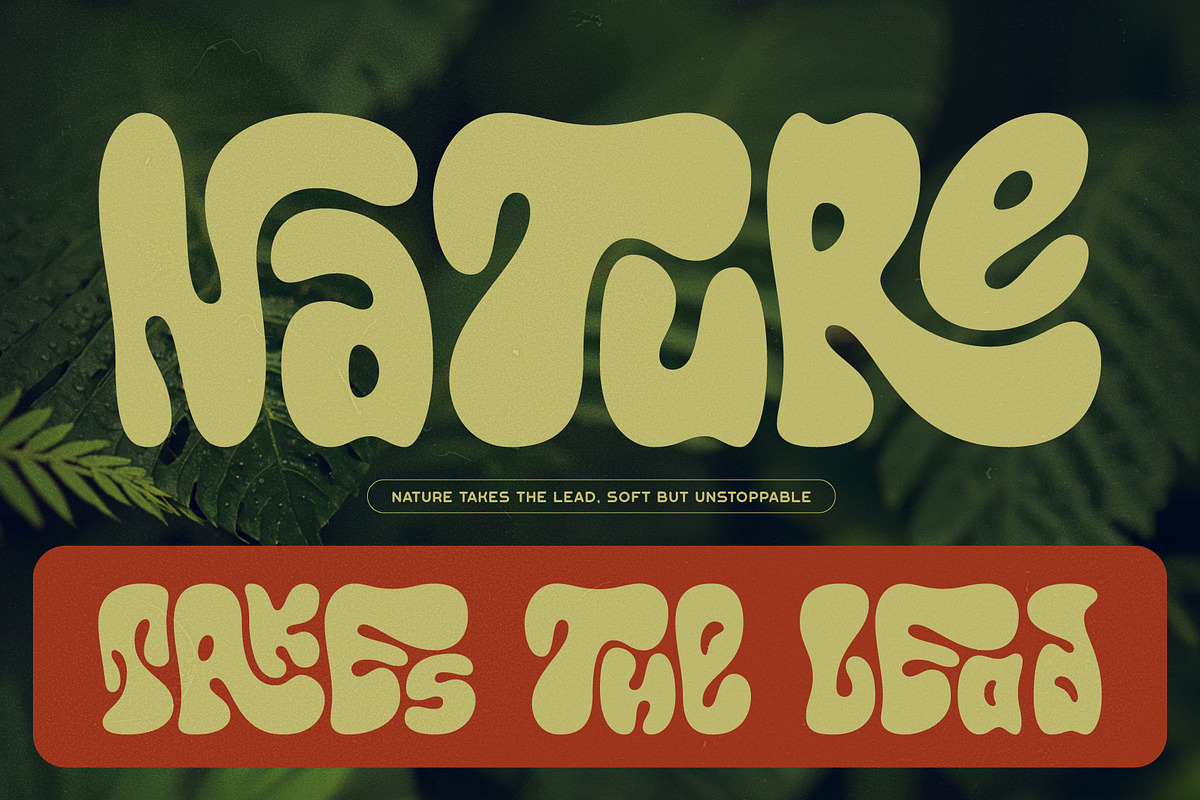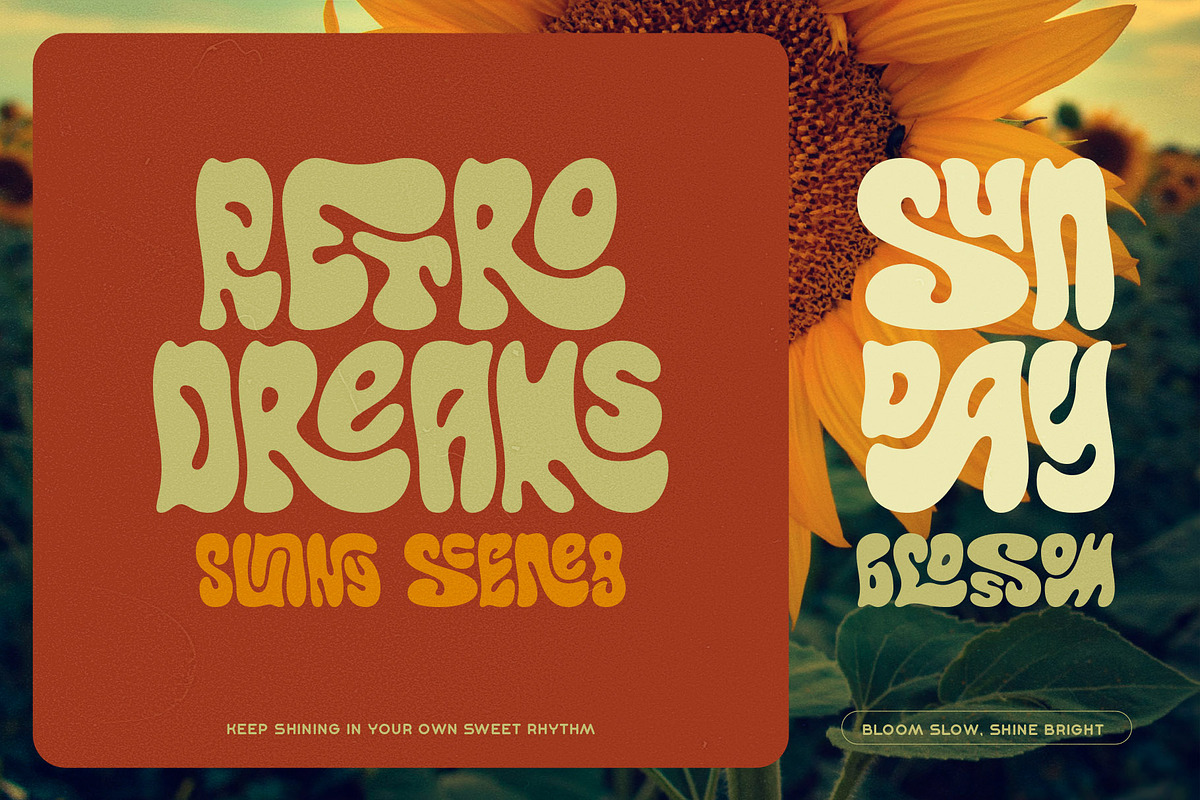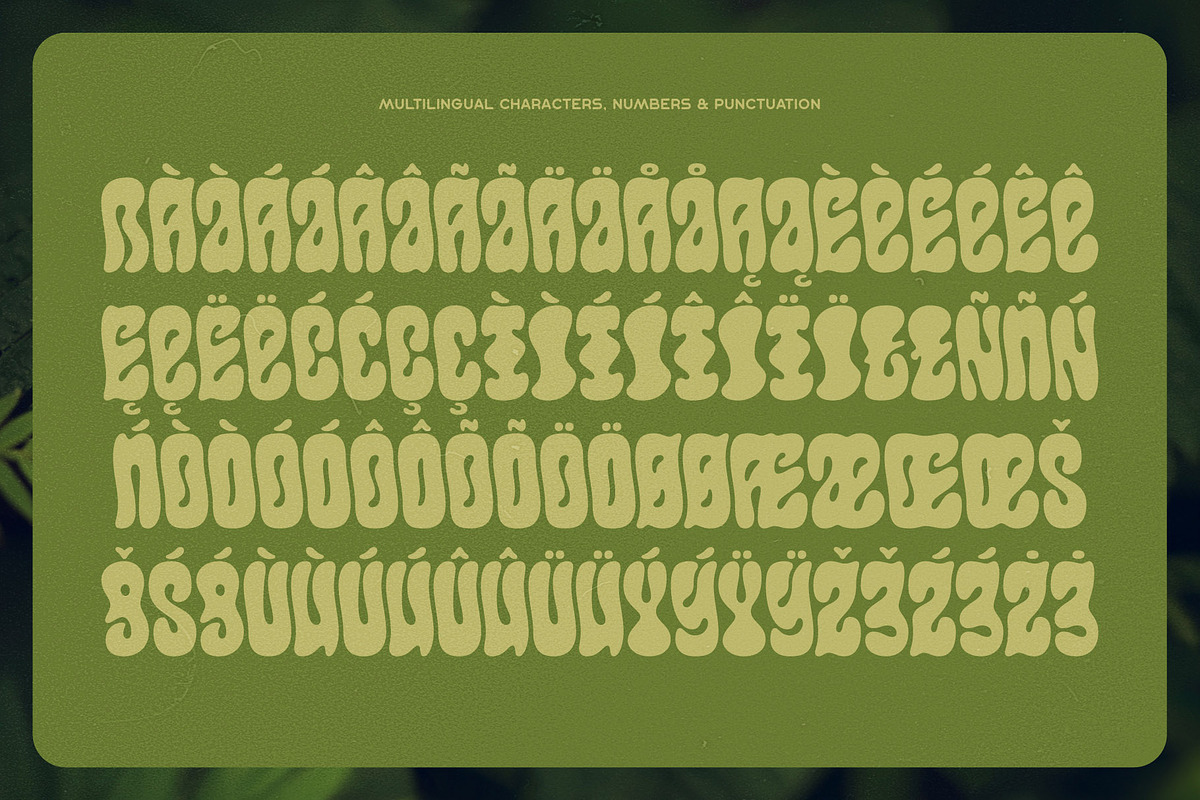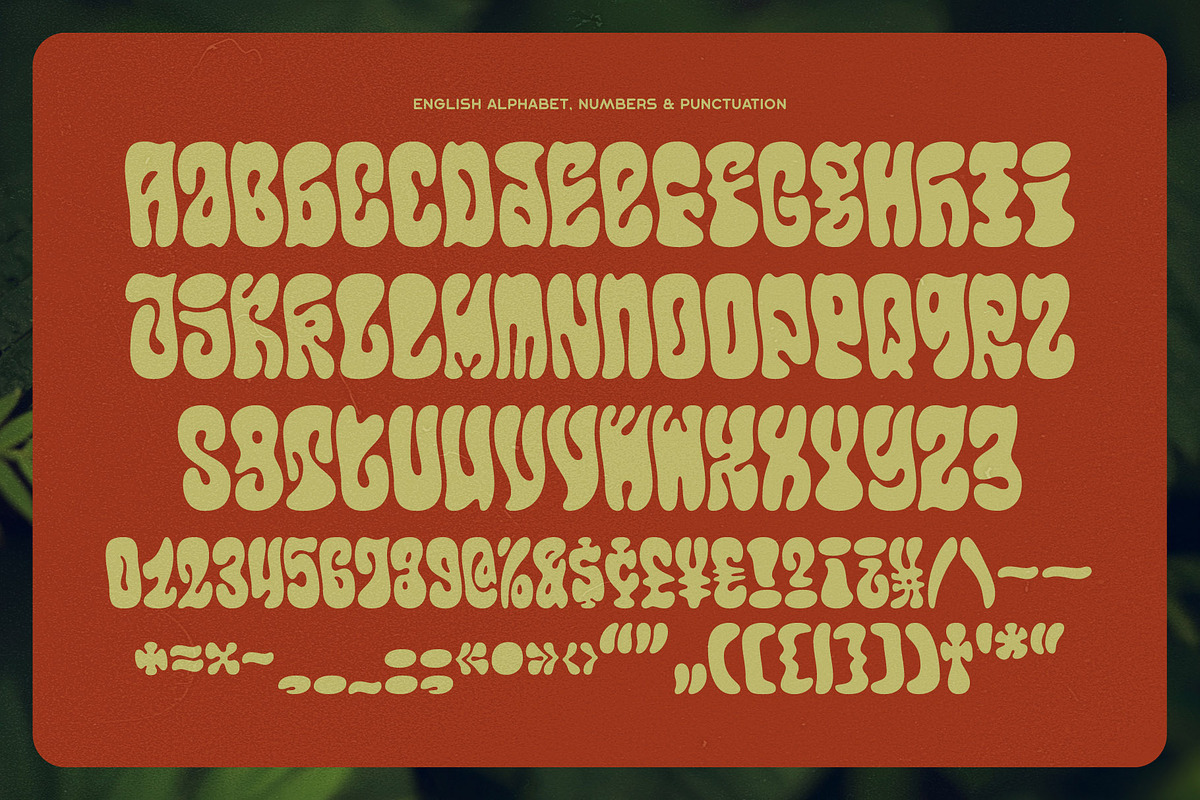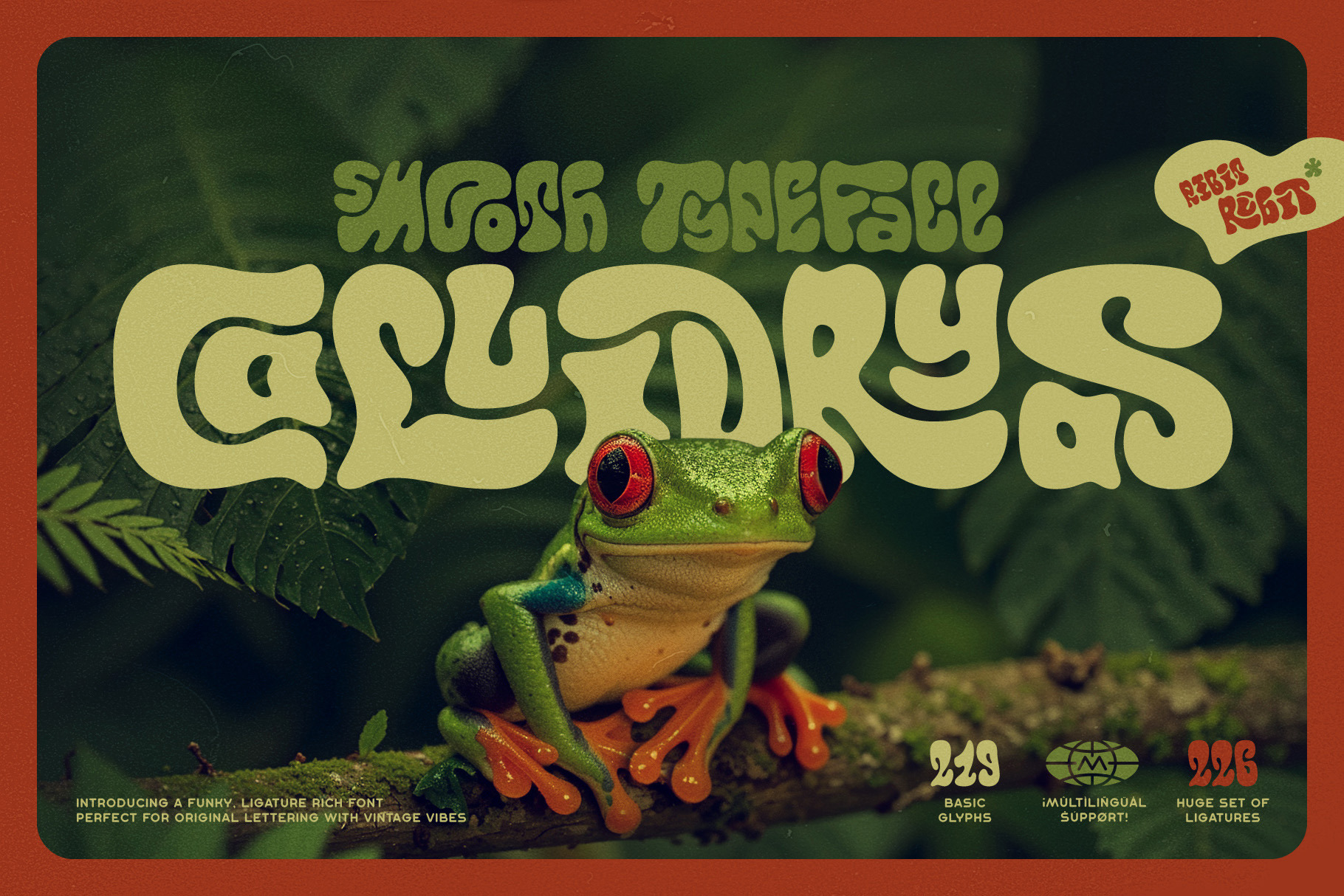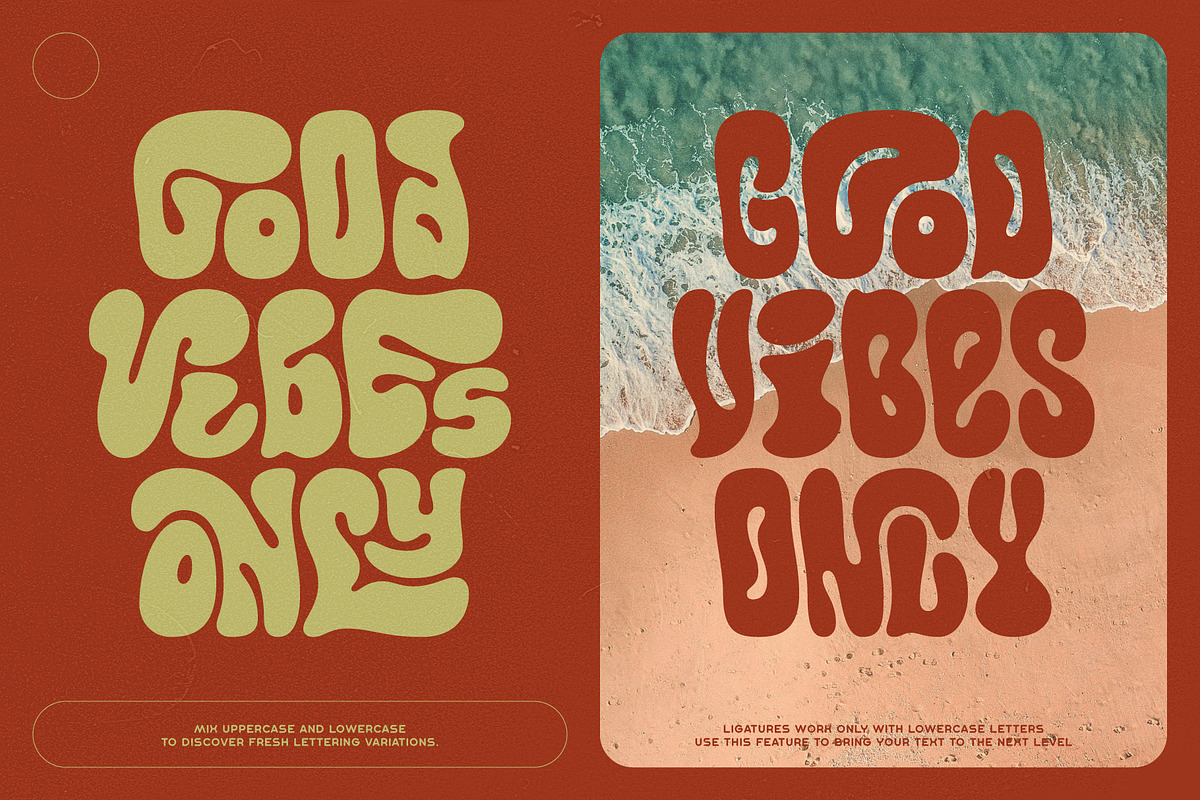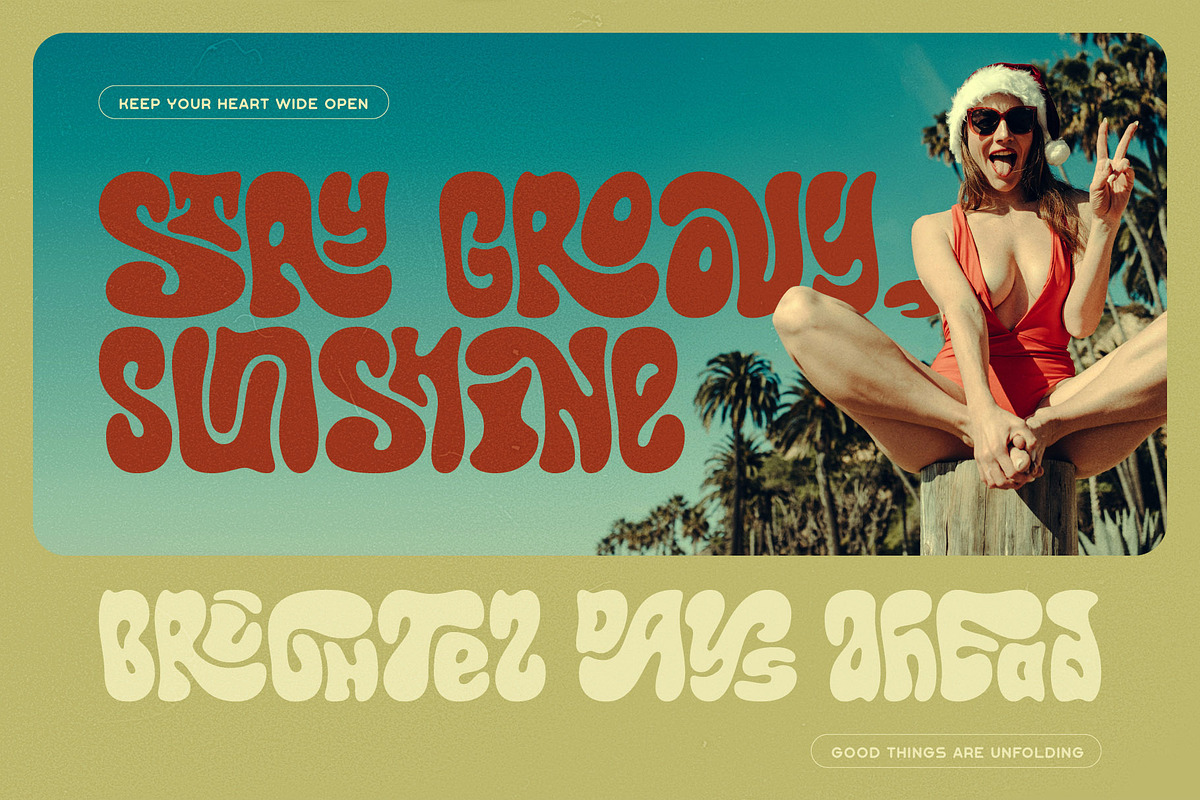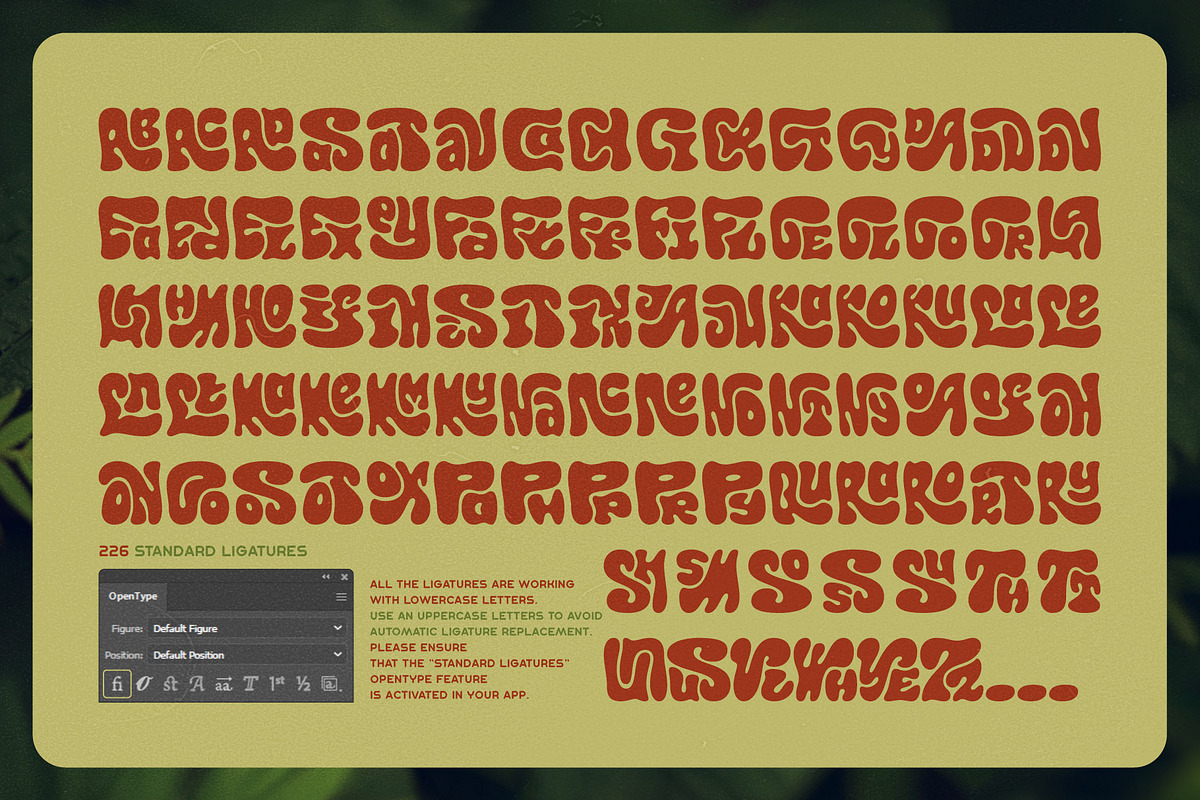
Callidryas Groovy Font
Hi, introducing a smooth shaped font Callidryas. This groovy vintage typeface delivers silky curves, bold personality, and a warm retro feel. Packed with unique ligatures, it brings effortless flow and creativity to any design. Ideal for branding, headlines, and eye-catching display work.
Callidryas font includes 227 ligatures which are working with lowercase letters. Usually this feature is enabled by default. You can use an uppercase letters to avoid automatic ligature replacement. Please ensure that the "Standard Ligatures" OpenType feature is available and activated in your app.
This font offers multilingual support — check out the screenshots to see the full character set.